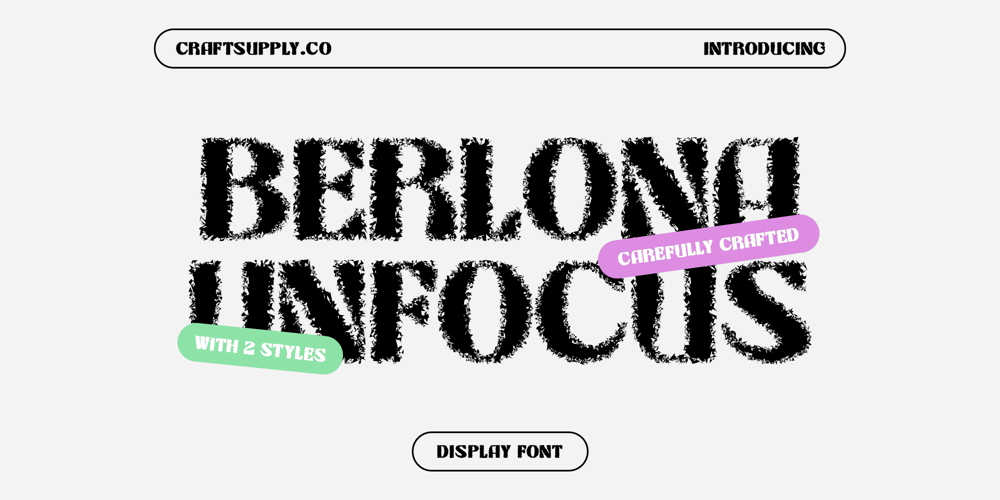
Berlona Unfocus Font Family was designed by Trio Nazzar Saputra, Wahyu Hadi Yuana and published by Craft Supply Co. Berlona Unfocus contains 2 styles and family package options. Berlona Unfocus: Boldness in the BlurSans-Serif Font with Bold Form and Unfocused StyleBerlona Unfocus is a sans-serif font with a bold form and unfocused style, typically suitable for designs that aim to highlight a unique, artistic, or experimental impression. Using a sans-serif font with a bold form and unfocused style can provide a unique and artistic look to various designs, creating a different and attention-grabbing impression.Perfect for Artistic DesignsWith its bold form and unfocused style, Berlona Unfocus Font is suitable for a variety of artistic projects, including posters, album covers, and experimental graphics. Its unique appearance adds a touch of creativity and originality, ensuring that your designs stand out from the crowd.Enhanced ArtistryBerlona Unfocus Font prioritizes artistry, ensuring that your designs are both expressive and captivating. Whether used in print or digital media, this font adds a dynamic and artistic element that resonates with viewers.Ideal for Attention-Grabbing DesignsWhether you’re creating a street art mural, designing a flyer for a music festival, or developing a social media graphic, Berlona Unfocus Font is the perfect choice for projects that require a bold and attention-grabbing look. Its unfocused style ensures that your designs will always make a statement.Make a bold statement with Berlona Unfocus Font and add a touch of artistic flair to your designs.